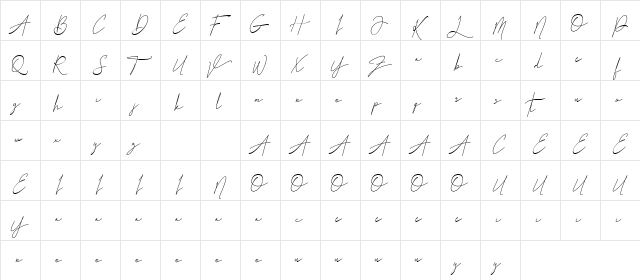
B Luna Piena Demo Italic
Design Context for B Luna Piena Demo Typeface
B Luna Piena Demo is a composed and adaptable typeface that performs quietly and consistently across a wide range of design contexts. The slanted form adds forward momentum and visual energy.
Pro Tip: Try B Luna Piena Demo for annotation and caption copy alongside an upright companion — the contrast in angle creates a dynamic but ordered typographic system.